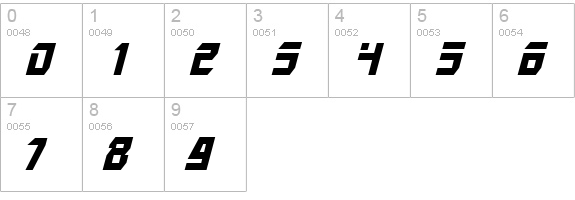
Mars Police Italic is a distinctive, italic variant in the Mars typeface family \xE2\x80\x94 well suited to design and typography projects.
Introducing Mars Police Italic font, a captivating and modern typeface that exudes an air of authority and sophistication. With its sleek and slanted design, this font is perfect for creating a bold and impactful statement. Mars Police Italic font offers a unique blend of futuristic elements and classic typography, making it an ideal choice for various design projects. Whether you're designing a logo, a magazine layout, or a poster, this font will effortlessly elevate your creations to new heights. One of the standout features of Mars Police Italic font is its versatility. It can seamlessly adapt to different design styles, from minimalistic and clean to edgy and dynamic. Its italicized form adds a touch of elegance and flair, making it stand out from the crowd. And the best part? Mars Police Italic font is available for free download at FontsMarket.com. This means that you can enhance your design projects without breaking the bank. Simply visit FontsMarket.com and experience the freedom to create stunning visuals with this remarkable font. Don't miss out on the opportunity to add Mars Police Italic font to your collection. Download it today and unlock a world of creative possibilities.